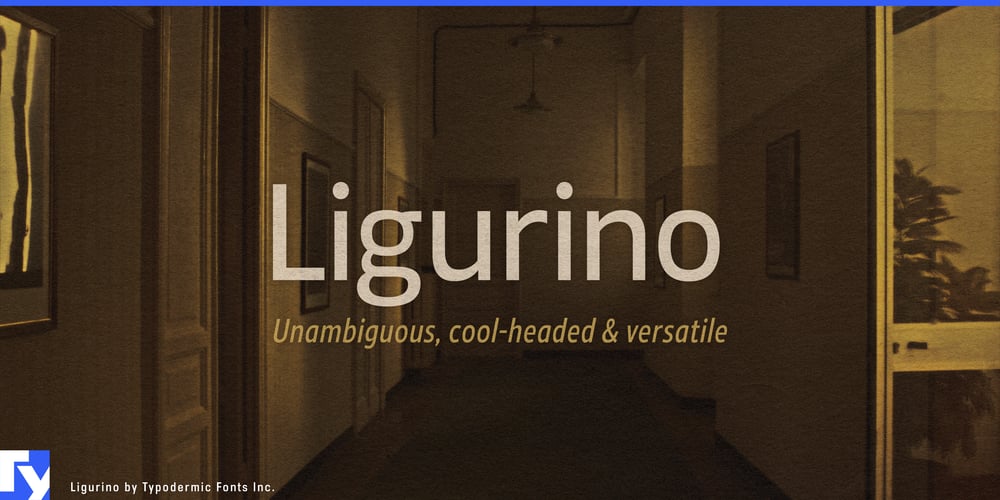
Ligurino Font Family was designed by Ray Larabie and published by Typodermic. Ligurino contains 36 styles and family package options. Ligurino: the sans-serif that whispers with the eloquence of a thousand orators. This isn’t just a typeface; it’s a masterclass in typographic minimalism, where every curve and line is a deliberate brushstroke in the art of visual communication.Picture a font that’s been on a zen retreat, emerging cleansed of all unnecessary flourishes, yet radiating an unmistakable elegance. Ligurino doesn’t shout for attention—it commands it with quiet confidence. Its clean lines and gentle curves are like a perfectly tailored Italian suit, equally at home in the boardroom or on a gallery wall. But don’t mistake Ligurino’s simplicity for lack of versatility. With three widths, six weights, and a full set of italics, it’s a typographic chameleon, ready to adapt to any design challenge. And for those moments when you need to make a statement? The all-caps outline style steps in like a typographic mic drop.Ligurino isn’t content with mere aesthetics. It’s a linguistic polymath, fluent in Latin, Cyrillic, Greek, and Vietnamese. From the bustling streets of Hanoi to the serene piazzas of Rome, Ligurino speaks the universal language of refined design. And let’s talk about that OpenType “stylistic alternatives” function. The austere “Q” isn’t just an alternate character—it’s a secret weapon, ready to inject a dose of gravitas into your designs at a moment’s notice.Ready to elevate your typography game? Let Ligurino be your design muse. In a world of typographic noise, Ligurino is the calm, cool voice of reason. Don’t just set type; set a new standard for elegance.